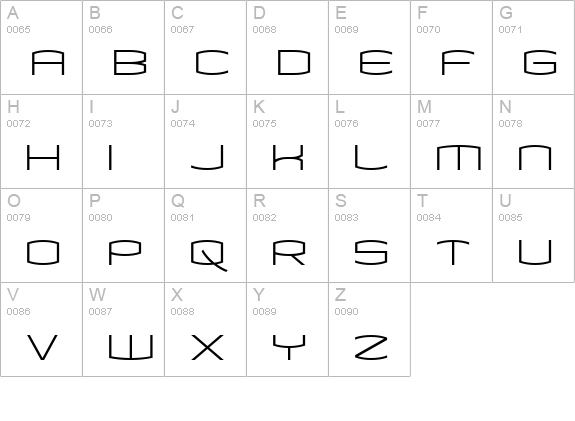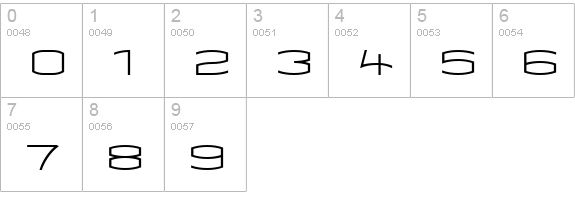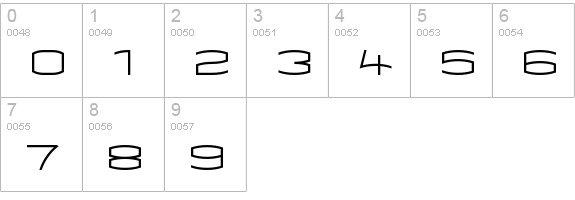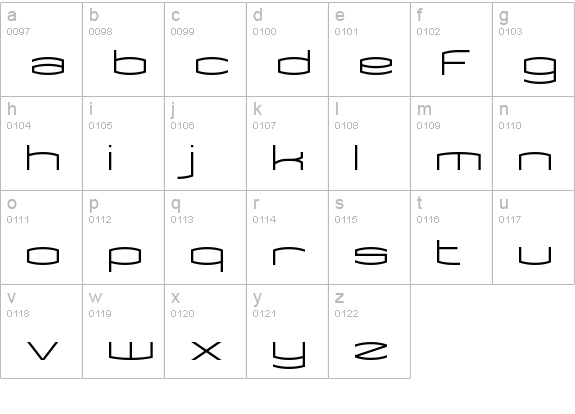
Kameleon Font Details
Kameleon font is a stunning typeface that effortlessly combines elegance and versatility. With its intricate and unique design, this font is sure to capture attention and add a touch of sophistication to any project. What sets Kameleon font apart is not only its striking appearance but also the fact that it is completely free to download. This means that whether you are a professional designer or simply someone who appreciates beautiful typography, you can freely enjoy the benefits of this remarkable font without any cost. Kameleon font can be easily downloaded at FontsMarket.com, a trusted source for high-quality fonts. With just a few clicks, you can have this extraordinary typeface at your disposal, ready to elevate your designs to new heights. Whether you are working on a logo, a poster, a website, or any other creative endeavor, Kameleon font offers endless possibilities. Its clean lines and exquisite details make it suitable for a wide range of projects, from elegant invitations to modern branding. The versatility of Kameleon font is truly remarkable. It effortlessly adapts to various design styles, from classic and timeless to contemporary and edgy. This font allows you to effortlessly express your creativity and make a lasting impression. Kameleon font's seamless legibility ensures that your message is conveyed effectively, whether it is in headlines or body text. Its carefully crafted characters and well-balanced proportions make it a pleasure to read, ensuring that your audience stays engaged and captivated. With Kameleon font, you have the freedom to explore and experiment. Let your imagination run wild as you mix and match different weights and styles to create unique combinations that suit your specific needs. The possibilities are endless with this exceptional font. So why wait? Experience the beauty and versatility of Kameleon font today. Visit FontsMarket.com and download it for free. Start adding a touch of elegance and sophistication to your designs with this remarkable typeface.